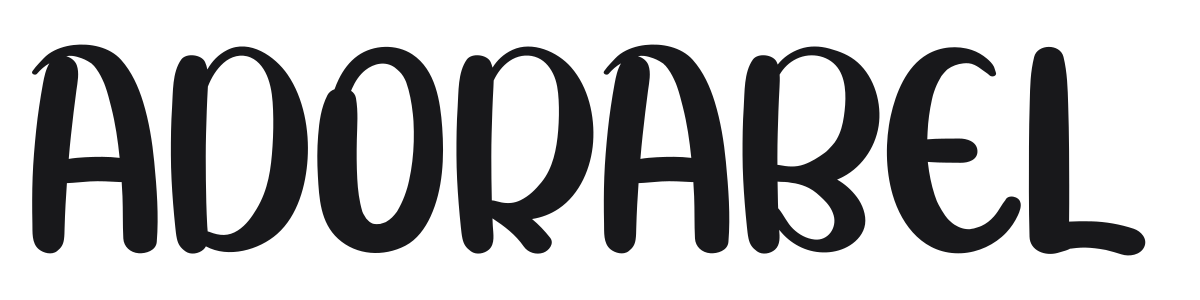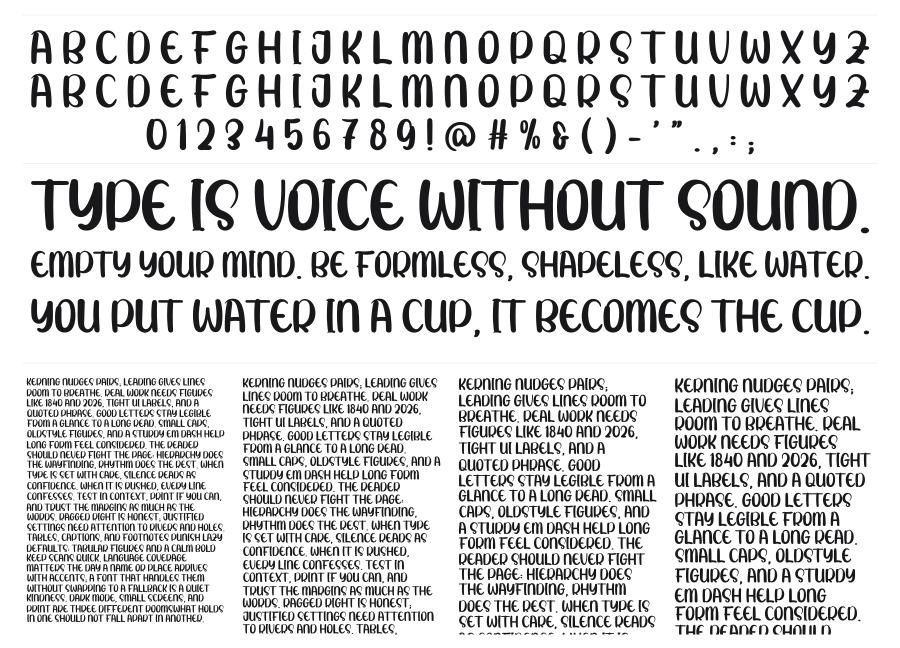
Adorabel
Adorabel is a bold, rounded retro display font with chunky strokes and quirky terminal details that keep it feeling hand-made. The wide, heavy letters carry a cheerful 1970s energy without tipping into parody. It works well for packaging, event posters, children's content, and anywhere a design needs warmth and personality at large sizes.